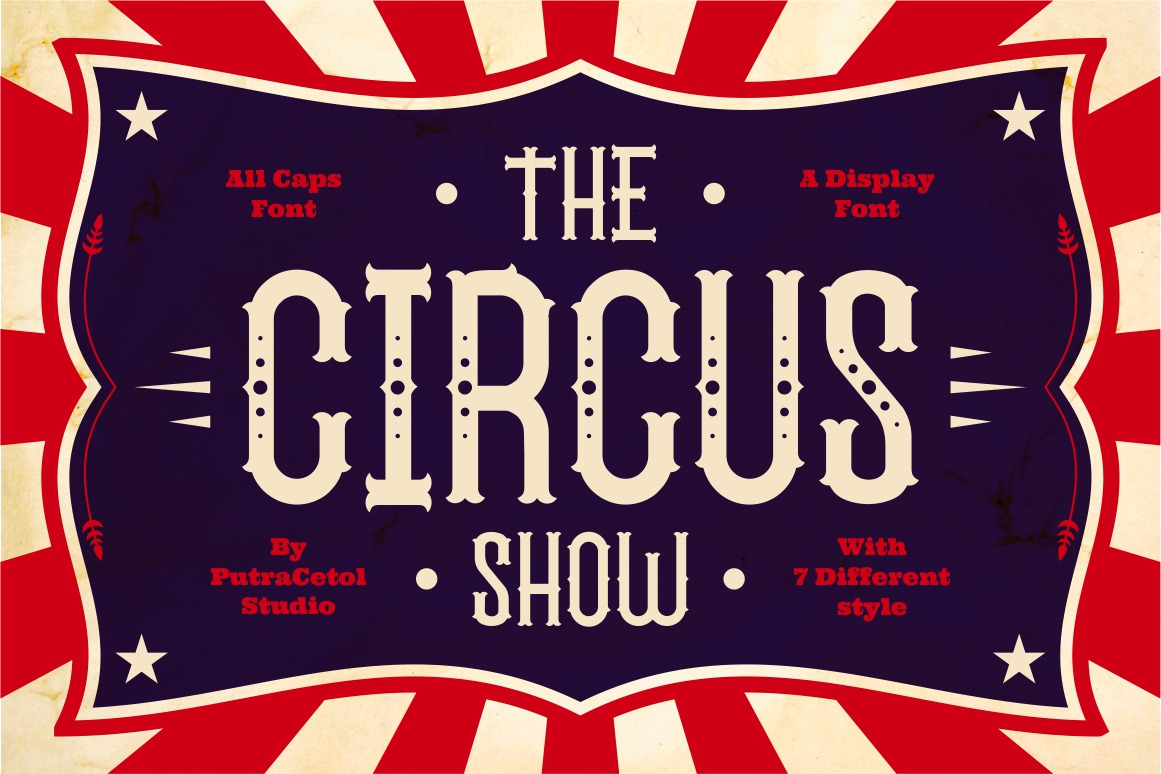
The Circus Show - Display Font
The Circus Show
Introducing a new Display Typeface called "The Circus Show". Inspired from american circus, carnival typography and tatto from 80's. The Circus Show have 7 styles : Regular, Dot, Centerdot, line, Needle, Rough and Ouline. The Circus Show best uses for Logotype, heading,cover, poster, logos, quotes, product packaging, header, merchandise, social media & greeting cards and many more. To access the alternate glyphs, you need a program that supports OpenType features such as Adobe Illustrator CS, Adobe Photoshop CC, Adobe Indesign and Corel Draw.
Comes with feature :
- 7 Different Styles
- Number, Punctuation And Symbols